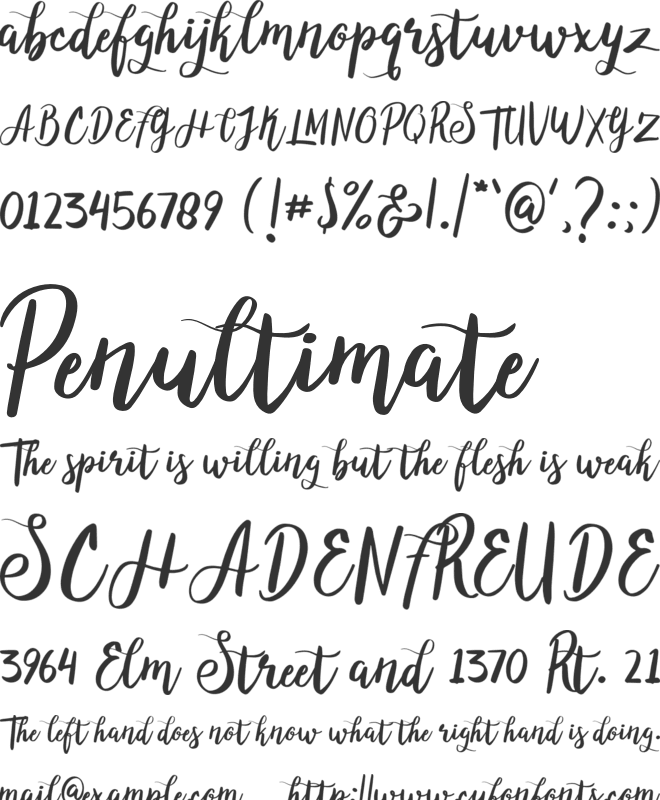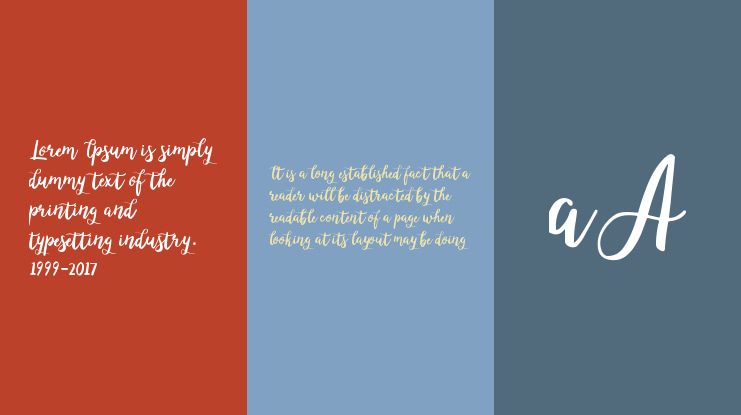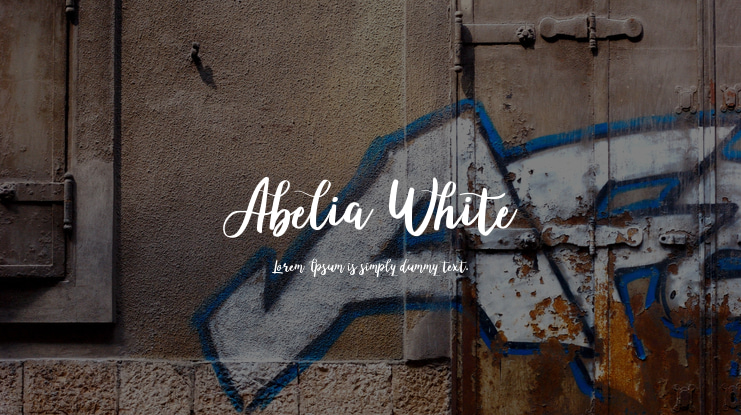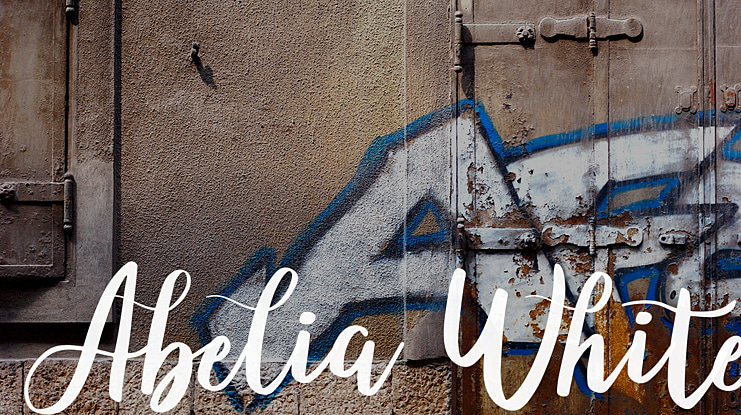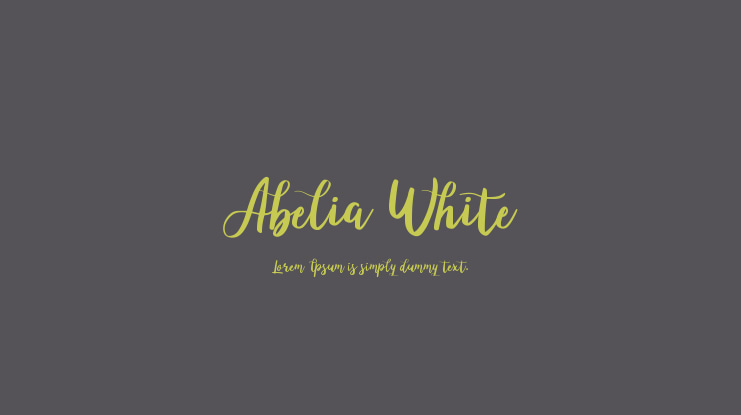
Abelia White Font
Abelia White is an elegant and modern handwritten font with an incredibly luxurious feel. Whether youíre looking for fonts for Instagram or calligraphy scripts for DIY projects, Abelia White will turn any creative idea into a true piece of art!---------------------------This is font Demo just for personal use. The donation is very appreciated. Not permitted for commercial use.visit my store for more great fonts https://fontbundles.net/runsellNeed Custom licenceemail: regards,Runsell Type Foundrie